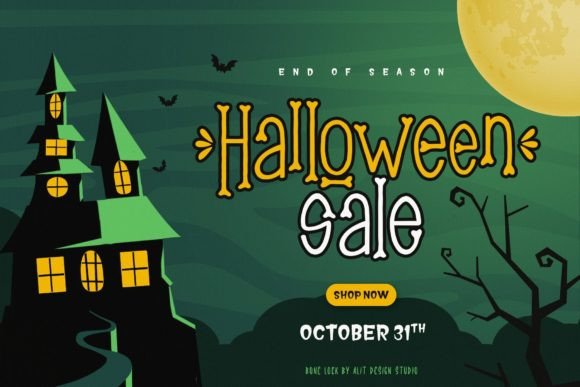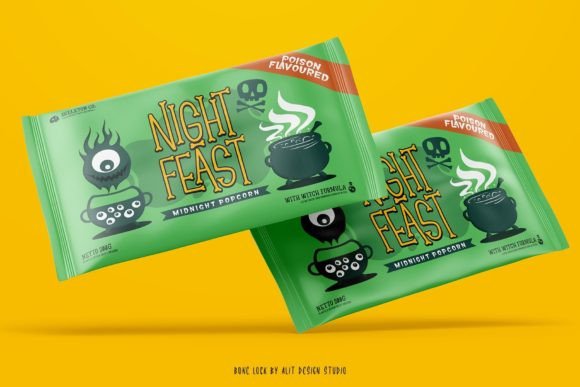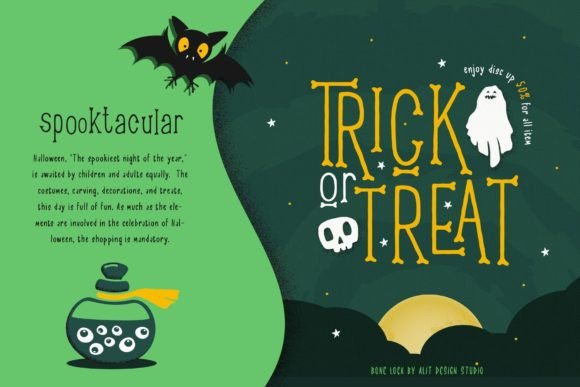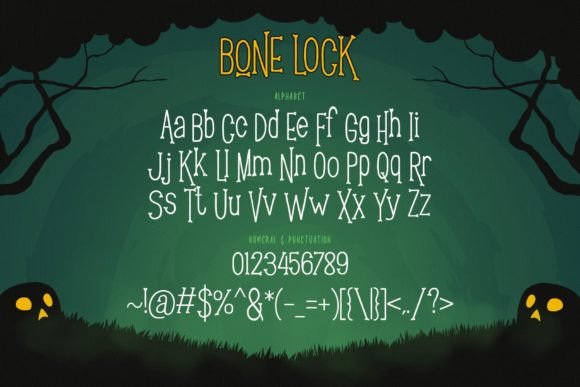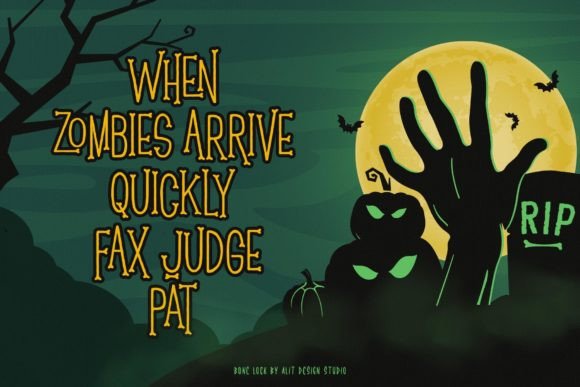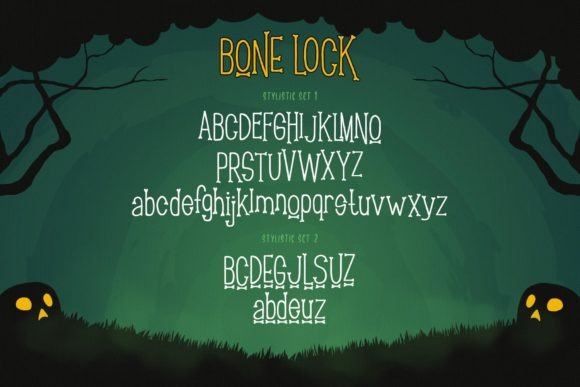
Bone Lock Font: The Spooky yet Fun Display Font for Halloween Designs
Are you looking for a font that can add a touch of spookiness and fun to your Halloween designs? Look no further than the Bone Lock Font! This cool and mysterious display font is perfect for creating eye-catching and eerie designs that will leave a lasting impression on your audience.
What Makes Bone Lock Font So Special?
Bone Lock Font is a unique and versatile font that is specifically designed for Halloween-themed designs. Its spooky yet fun vibe makes it perfect for creating a wide range of designs, from creepy posters and flyers to eerie invitations and party decorations.
One of the standout features of Bone Lock Font is its PUA (Private Use Area) encoding. This means that you can access all the glyphs and ligatures with ease, giving you complete creative control over your designs. Whether you’re a designer, crafter, or DIY enthusiast, Bone Lock Font is the perfect choice for adding a touch of Halloween magic to your projects.
Bone Lock Font is a dream come true for designers and crafters who love creating unique and eye-catching designs. Its versatility and flexibility make it perfect for a wide range of projects, including:
- Halloween party invitations and decorations
- Creepy posters and flyers
- Eerie social media graphics and posts
- Spine-tingling t-shirts and merchandise
- Hauntingly beautiful crafts and DIY projects
Whether you’re creating digital designs or physical crafts, Bone Lock Font is the perfect choice for adding a touch of spookiness and fun to your projects.
Key Features of Bone Lock Font
So, what are the key features of Bone Lock Font that make it so special? Here are just a few:
- PUA encoded: Easy access to all glyphs and ligatures
- Cool and mysterious design: Perfect for creating spooky yet fun designs
- Display font: Ideal for headlines, titles, and eye-catching designs
- Versatile: Suitable for a wide range of projects and designs
- Experiment with different colors: Try pairing Bone Lock Font with different colors to create unique and eye-catching designs
- Play with textures and patterns: Add depth and interest to your designs with textures and patterns
- Get creative with ligatures: Use the PUA encoded glyphs and ligatures to add a touch of personality to your designs
Bone Lock Font is a unique and versatile display font that’s perfect for adding a touch of spookiness and fun to your Halloween designs. Its PUA encoding and cool, mysterious design make it a must-have for designers and crafters who love creating eye-catching and eerie designs.